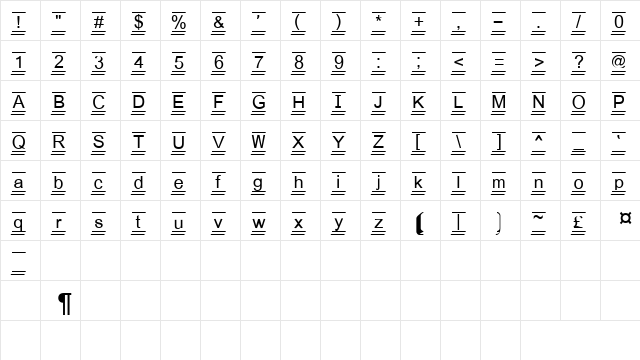
FIKey3 Normal
Design Context for FIKey3 Typeface
FIKey3 takes a measured approach to typography — its balanced proportions and neutral character make it a reliable workhorse for both digital and print work.